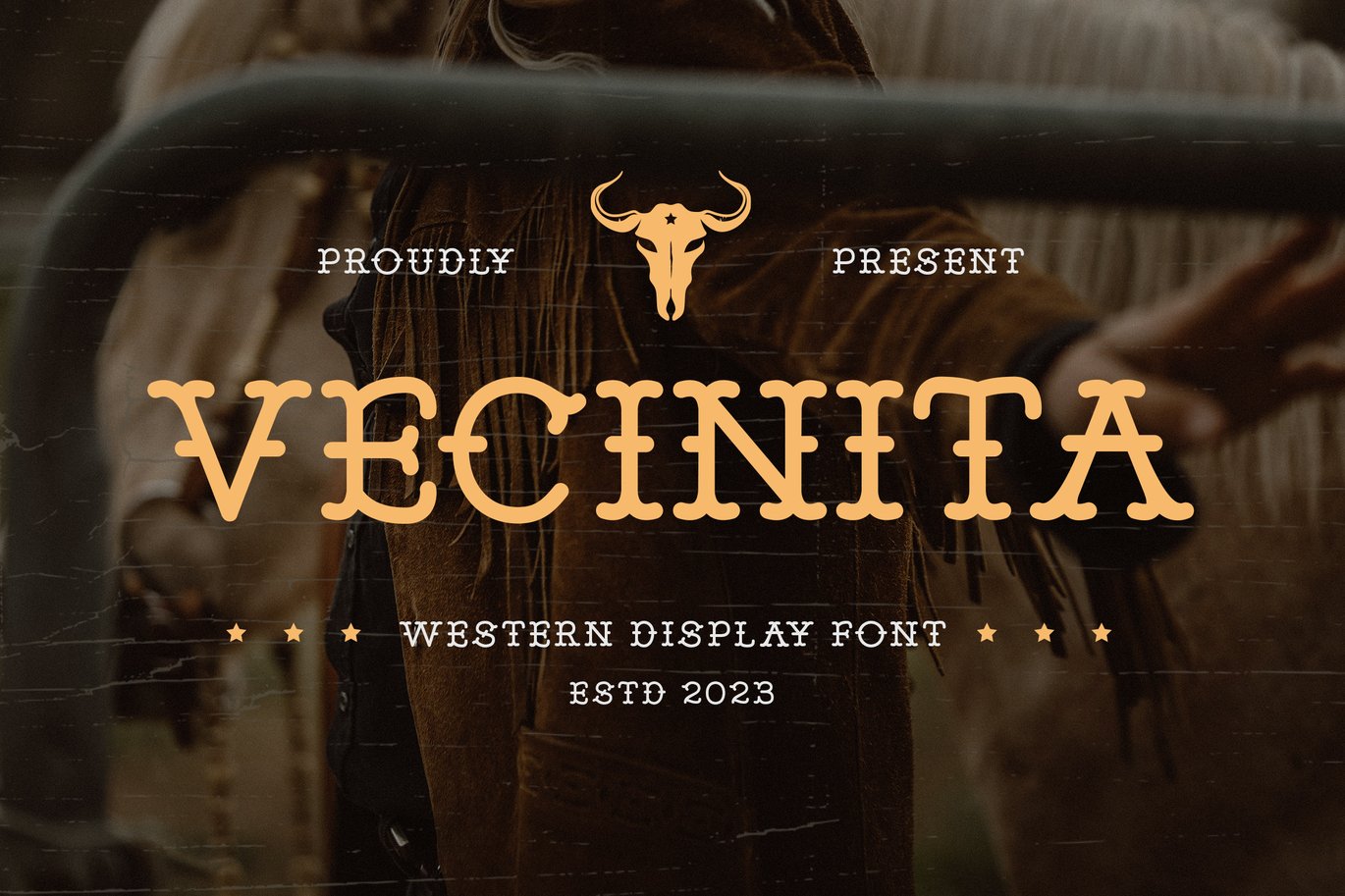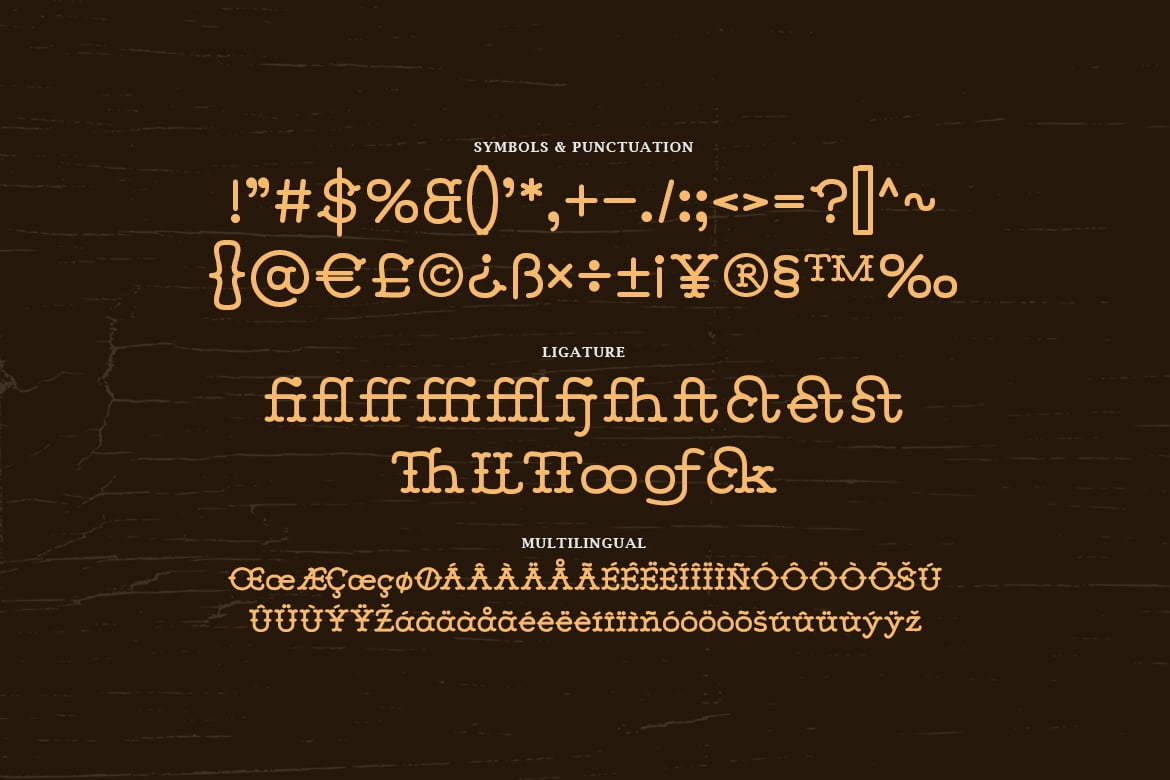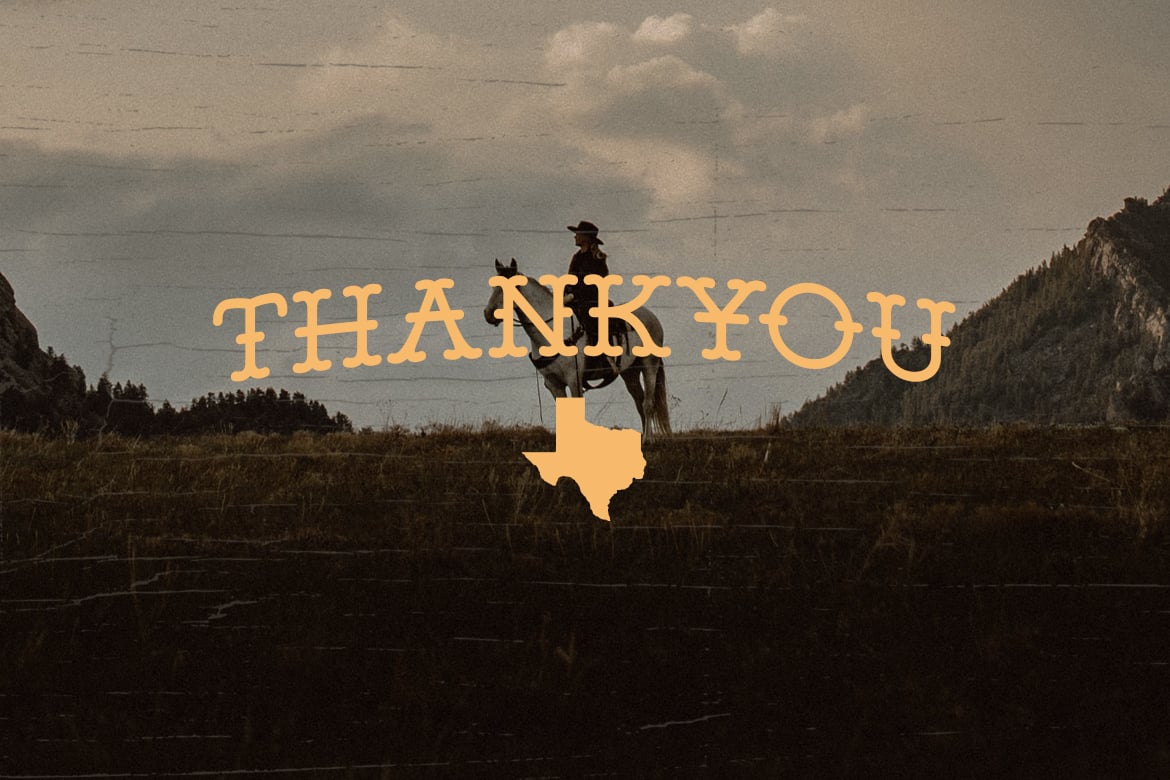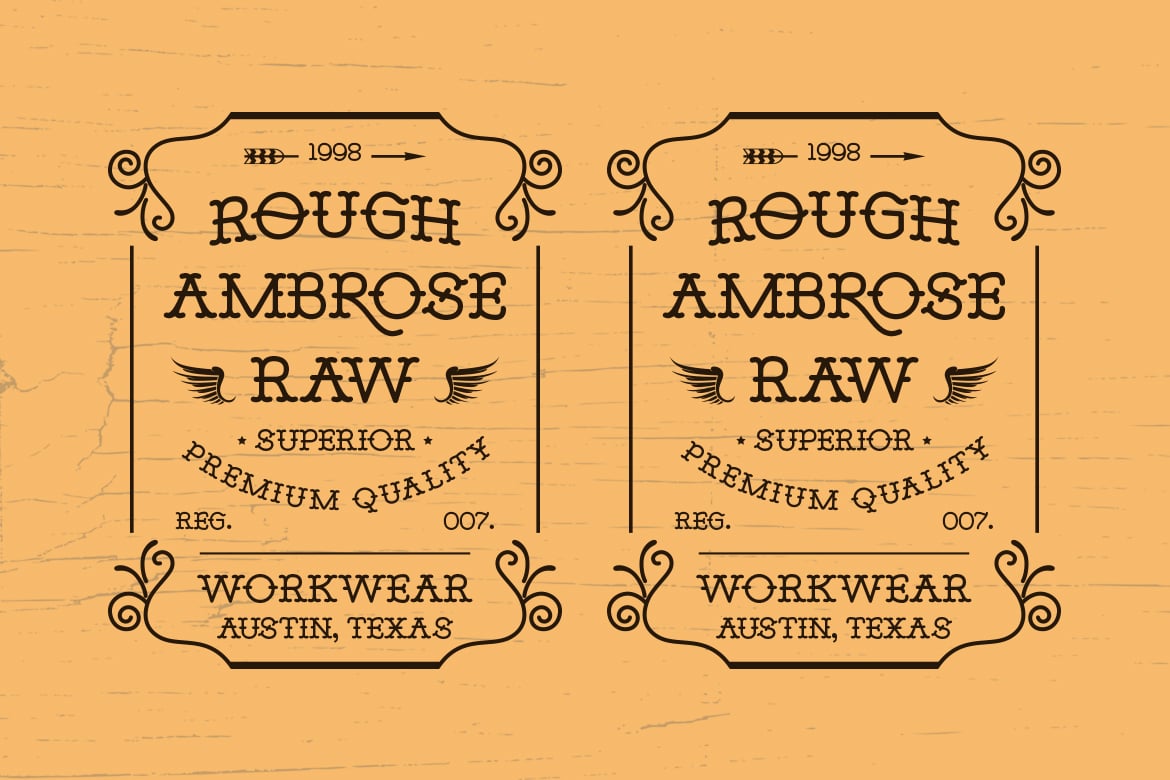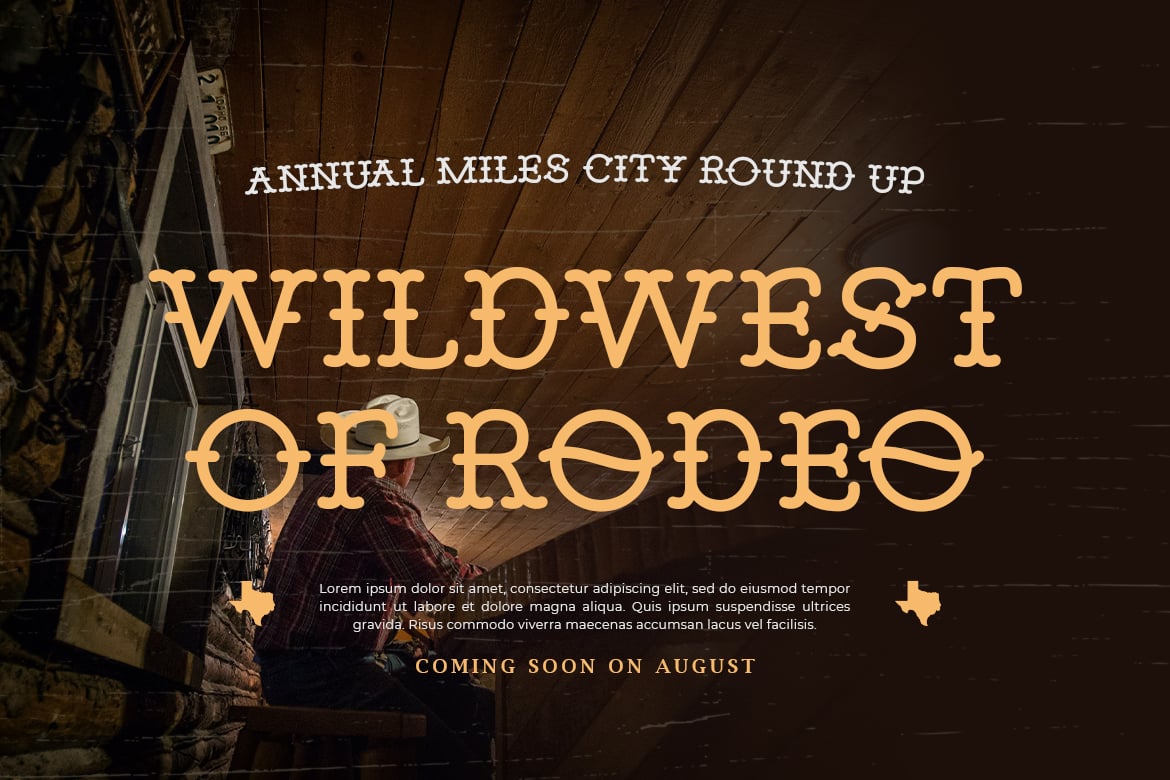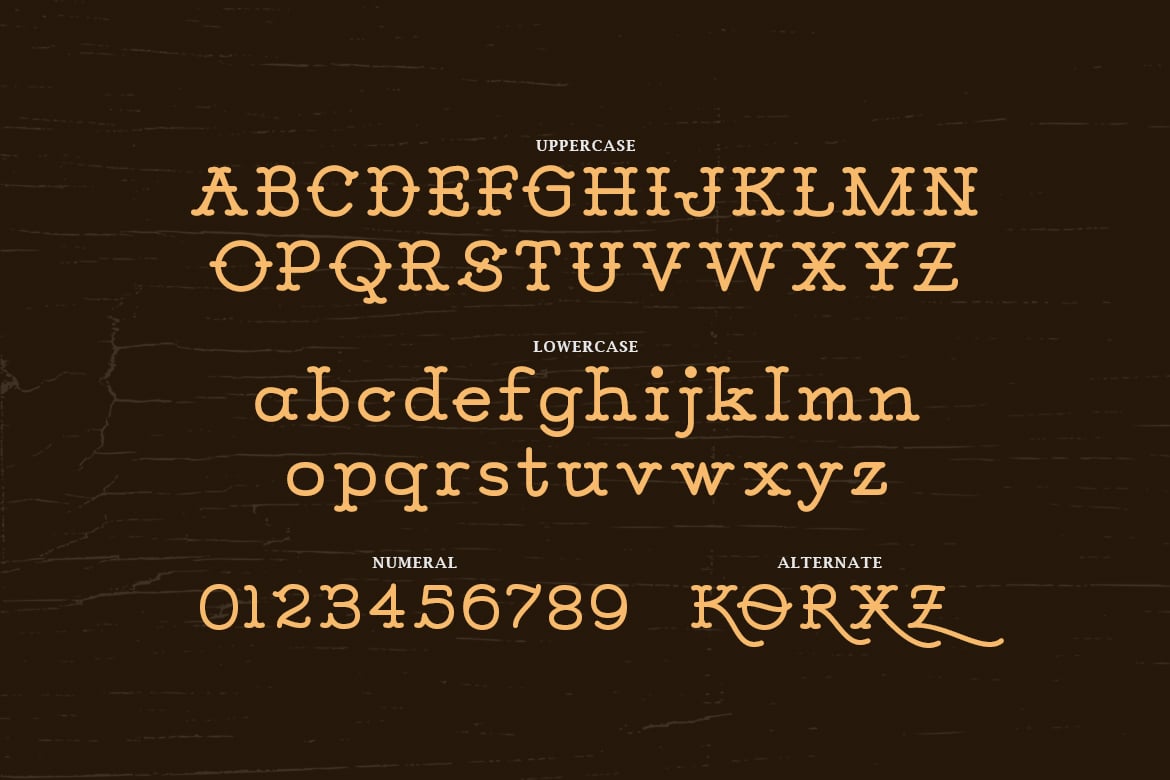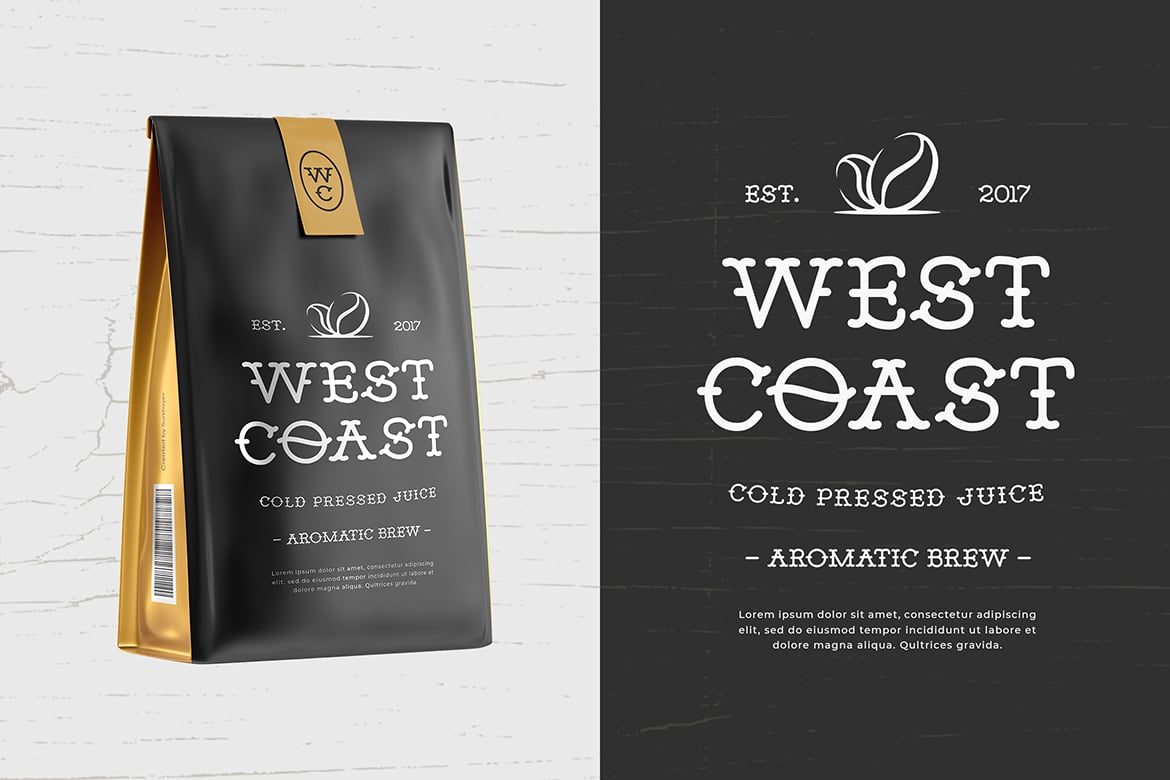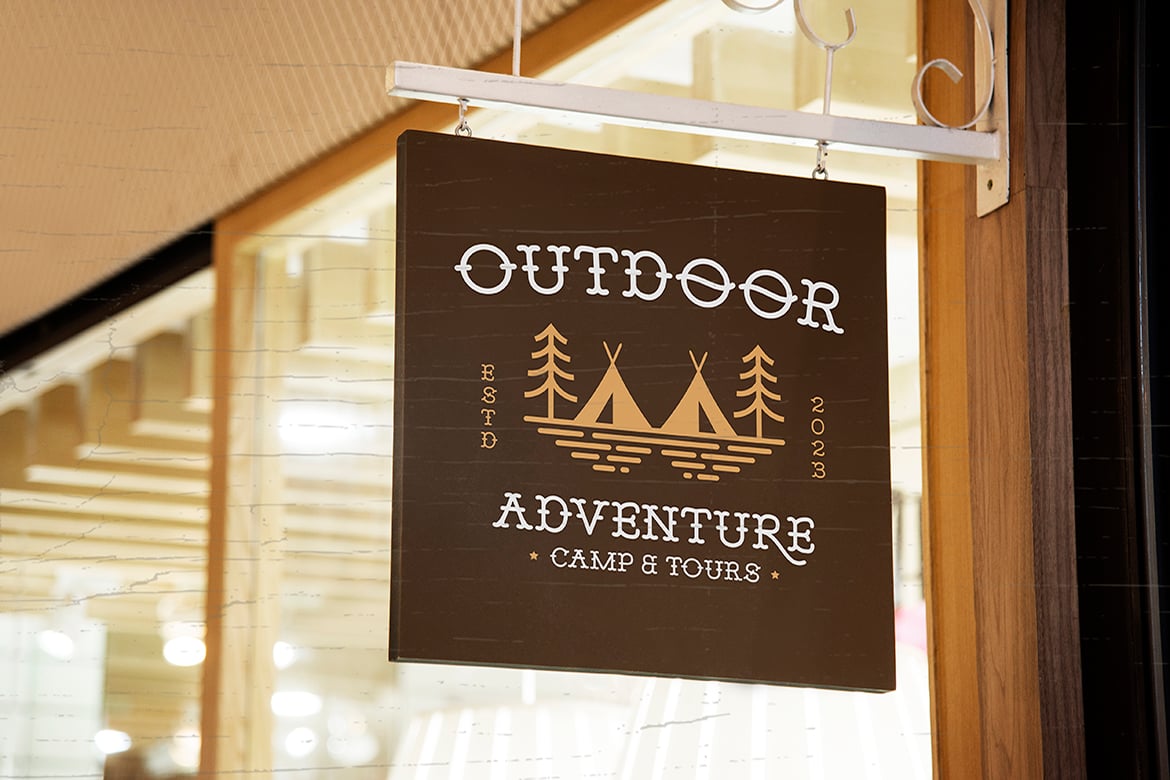
Vecinita – Western Display Font
Saddle up for adventure with “Vecinita” – a western display font that brings the wild frontier to your designs!
With its rugged and bold letterforms, “Vecinita” captures the essence of the Old West. Each character is meticulously designed to infuse your projects with rustic charm, making it perfect for western branding, cowboy-inspired posters, rodeo events, and more.
Embrace the frontier spirit of “Vecinita” as it effortlessly enhances your designs. Whether you’re crafting daring saloon logos, captivating cowboy art, rugged event banners, or authentic social media content, this font will captivate your audience with its western and adventurous style.
Ride into the sunset with “Vecinita” and let your designs echo the rugged beauty of the frontier!